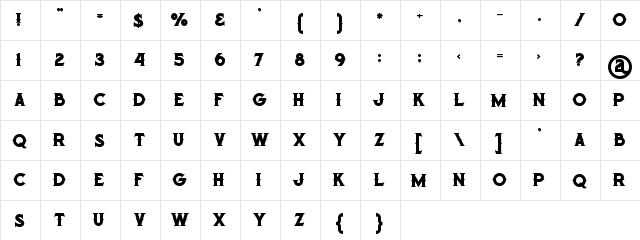
Octopus bold Regular
Design Context for Octopus bold Typeface
Octopus bold offers clean, dependable letterforms without strong stylistic allegiance, making it a practical choice for designers who need flexibility. The heavy weight commands attention and anchors typographic hierarchies.
Pro Tip: Use Octopus bold in both headline and body roles to test its range before committing to a single application.